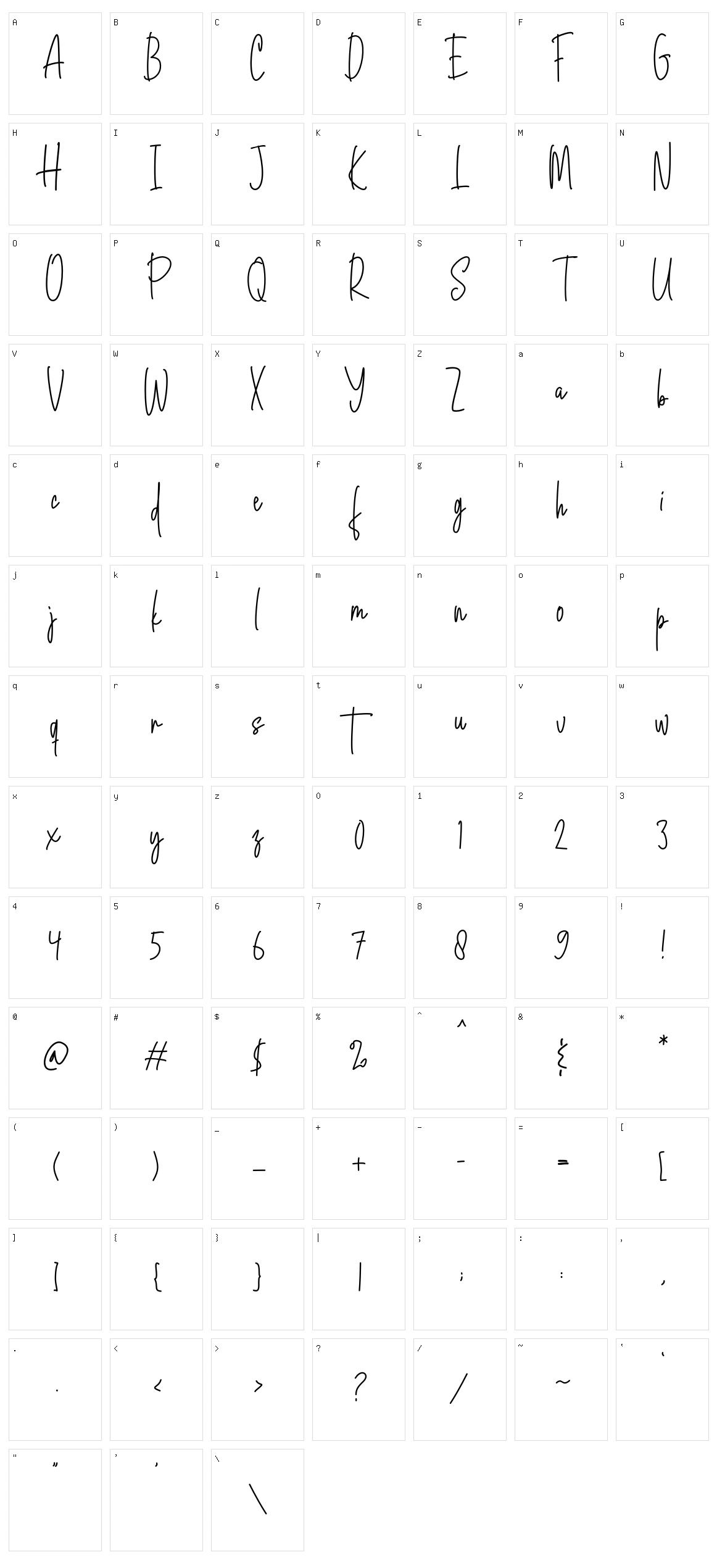
The free font Honestly is carefully designed by Letternun, showcasing a thoughtful balance of creativity and usability and falls under the Script font style. When you download the ZIP file, it contains only 163.45 KB of font files, making it lightweight and quick to download. Please review the license details below to understand permitted usage and distribution rights. If license information is not available, we recommend using this font for personal projects only or contacting the author directly for commercial usage permissions.